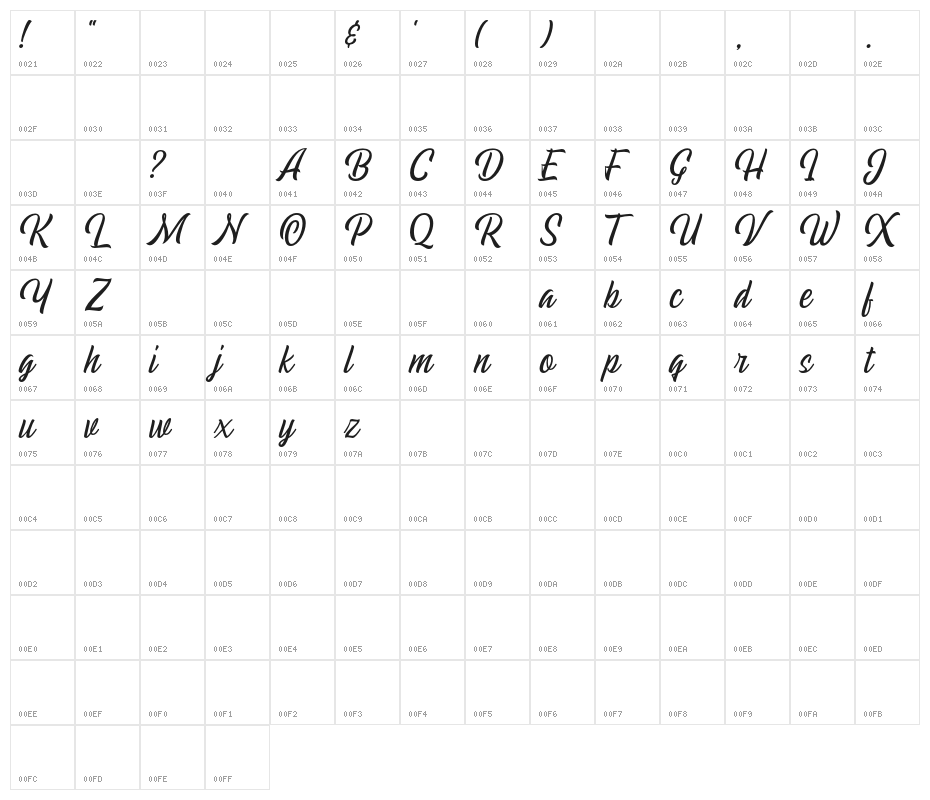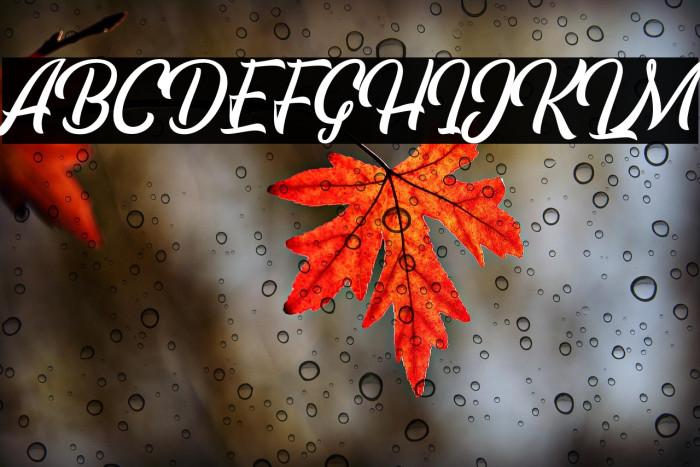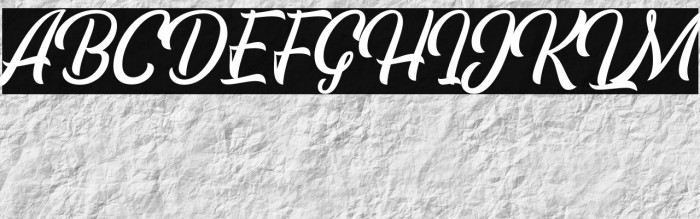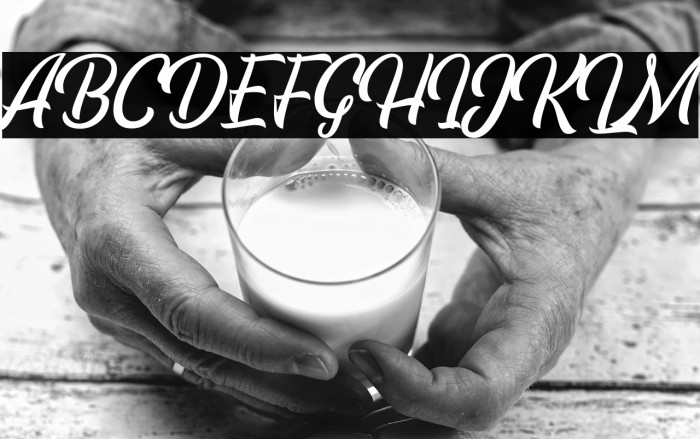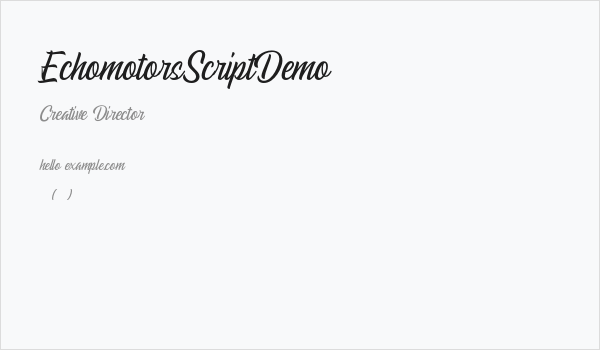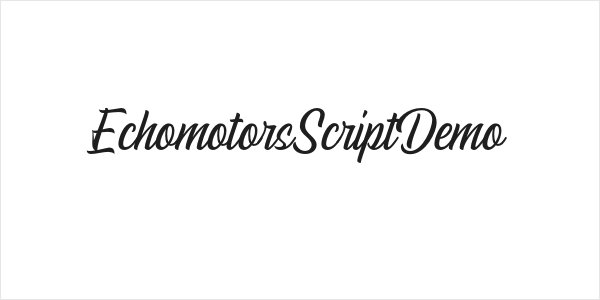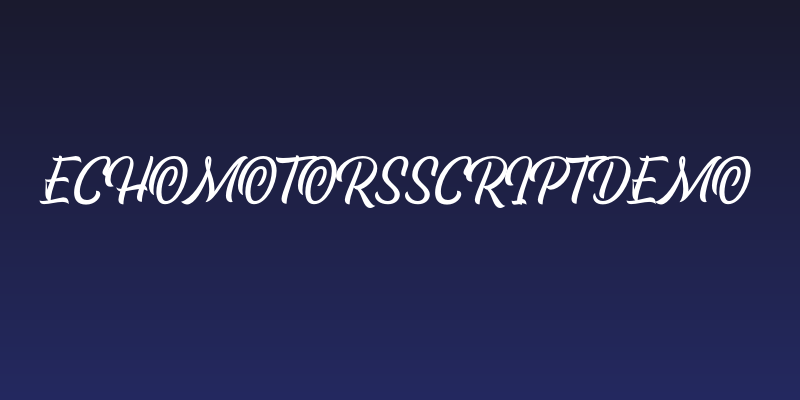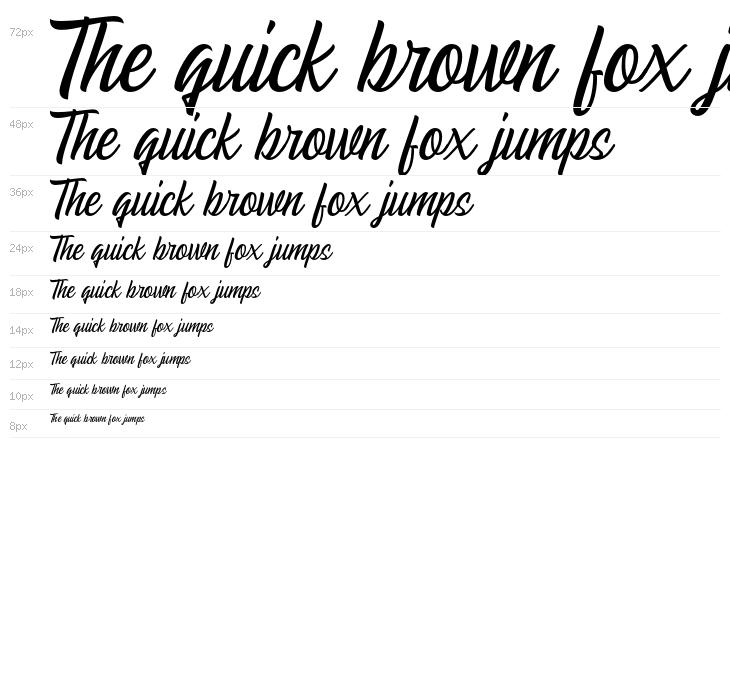
EchomotorsScriptDemo Font
EchomotorsScriptDemo Description
This elegant script font features a flowing, cursive style with smooth, connected letters that evoke a sense of sophistication and grace. The uppercase letters are bold and sweeping, with intricate loops and flourishes that add a decorative touch. The lowercase letters maintain a consistent rhythm and are slightly slanted, enhancing the fluidity of the text. The numerals and special characters are designed to complement the overall style, with similar curves and embellishments. This font is perfect for projects that require a touch of elegance and personality.
| Overall Style | Elegant, Decorative |
| Proposed Projects | Ideal for wedding invitations, elegant branding, greeting cards, and upscale packaging. |